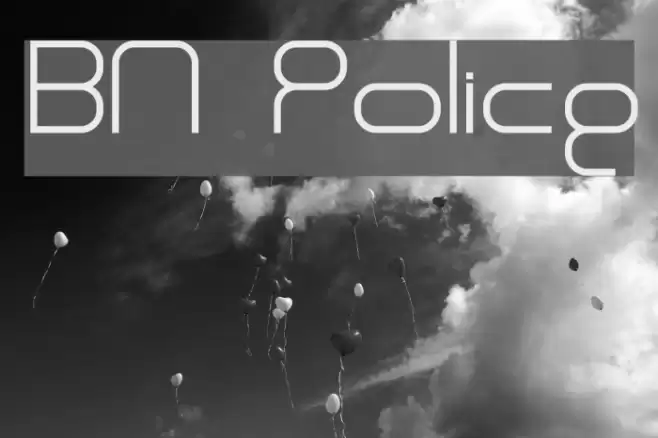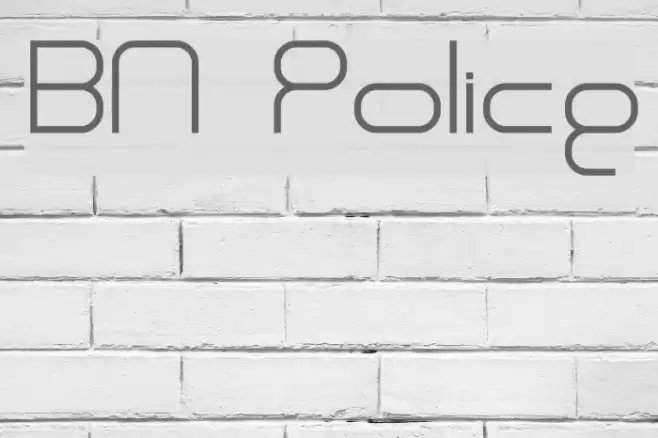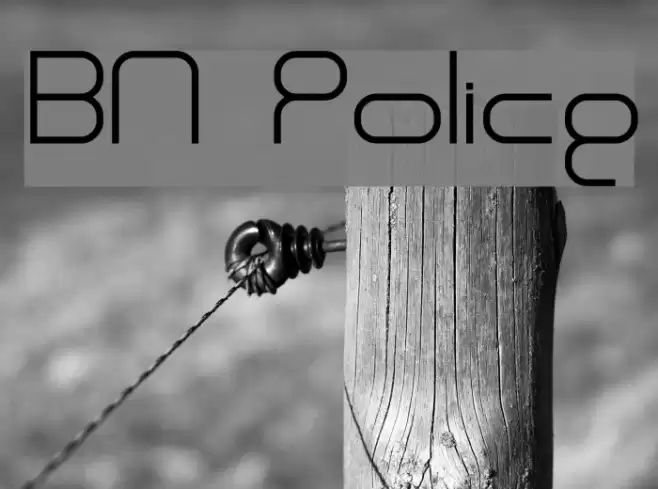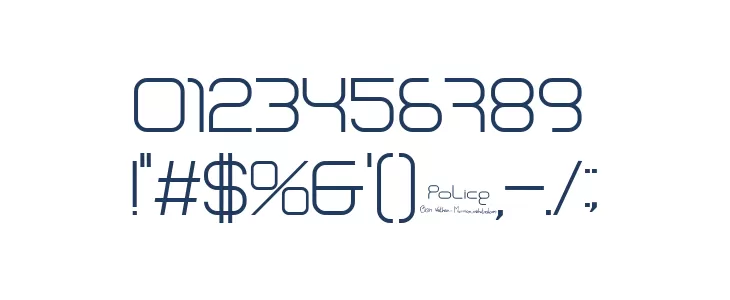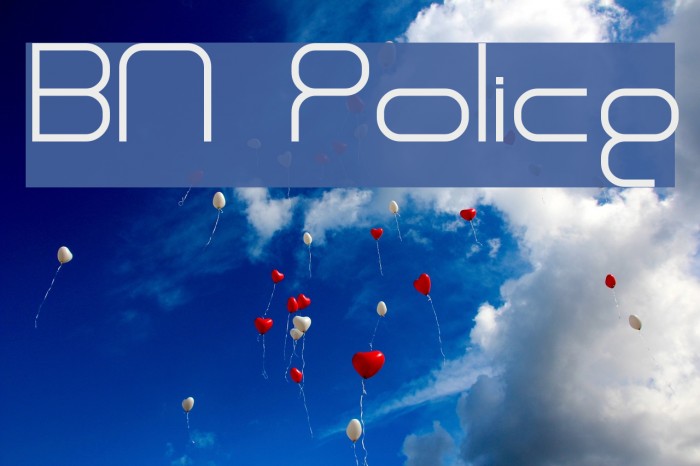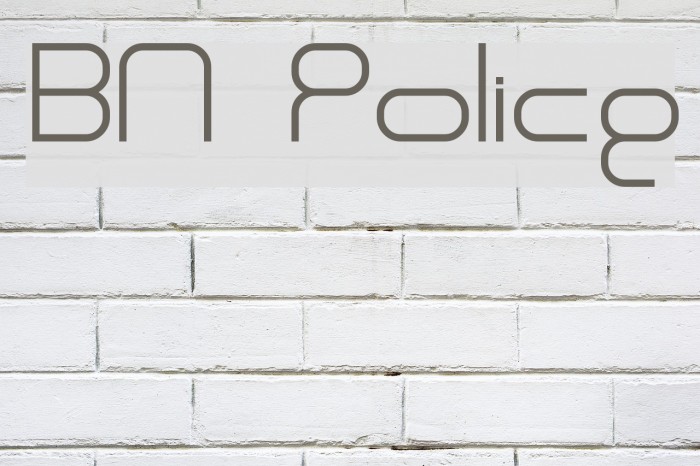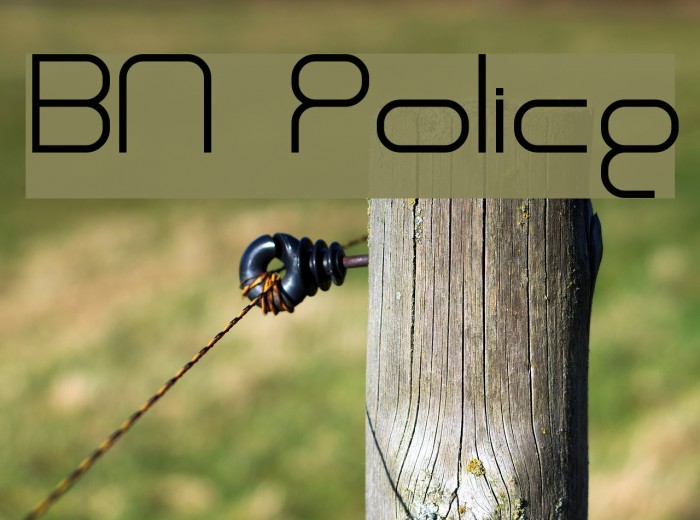
BN Police Font
BN Police Description
This font features a modern, geometric design with clean lines and a minimalist aesthetic. Each character is crafted with precision, showcasing a uniform stroke width that contributes to its sleek appearance. The uppercase letters are tall and narrow, while the lowercase letters maintain a consistent style, offering a harmonious blend of form and function. The numerals and special characters are designed to match the overall aesthetic, making this font versatile for various applications. Its futuristic look is ideal for projects that require a contemporary and innovative touch.
A modern, geometric font with clean lines and a minimalist aesthetic from Stencil fonts.
- Proposed Projects: Ideal for technology branding, modern advertising, futuristic designs, and digital interfaces.
- Use Case: Logos, Headlines, Digital interfaces